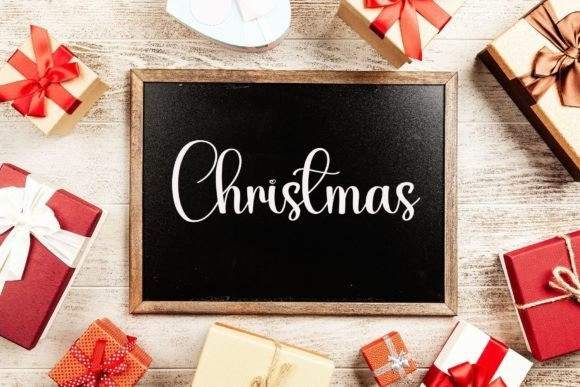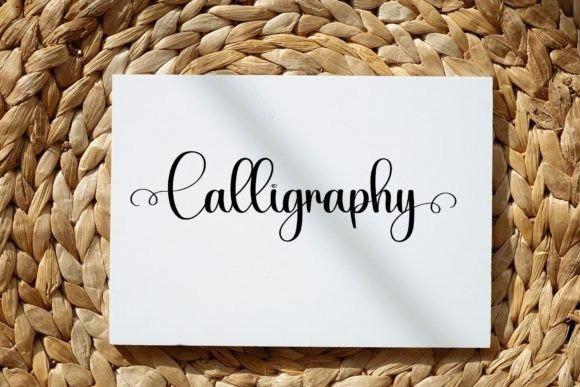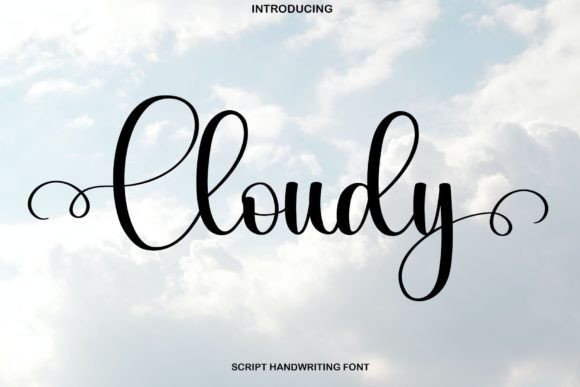
Cloudy Font
Cloudy Font is a delicate and well-rounded handwritten font, perfect for crafty projects that need authentic typography! Use it for wedding invitations, birthday cards, personal branding, elegant logos, or more.